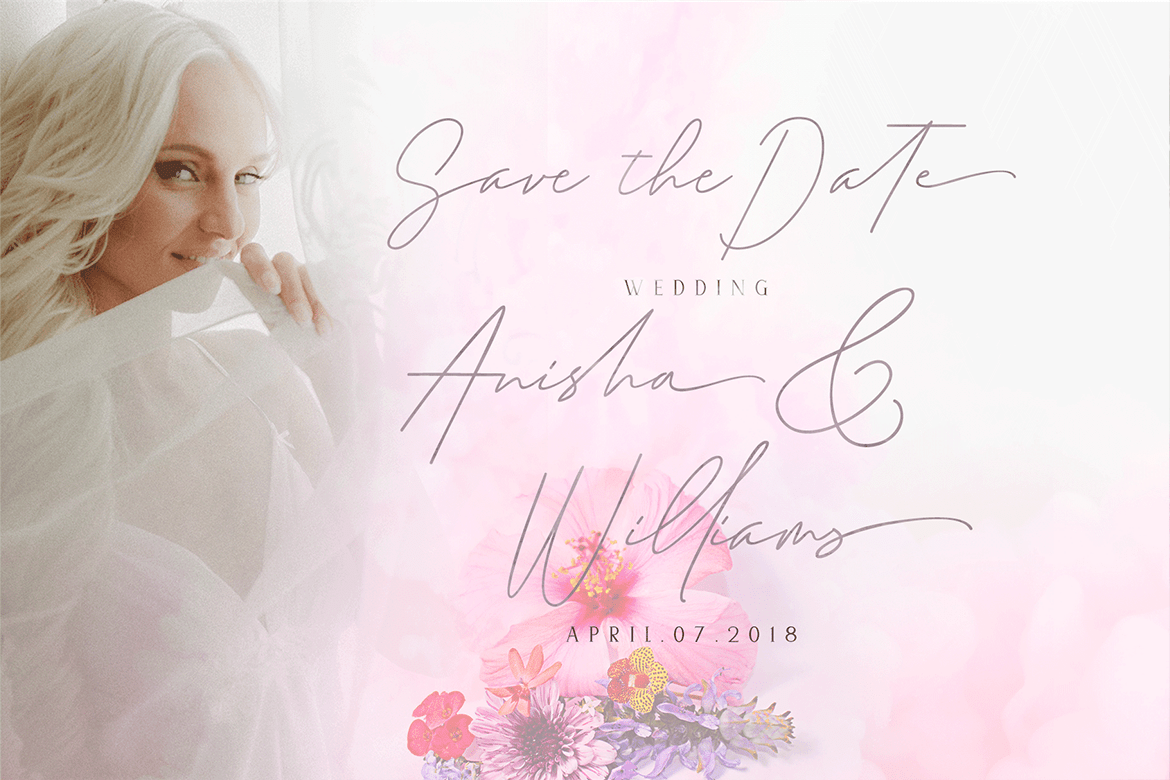
Aromatic
Font Family by Groen Studio
Aromatic a work that is purely handwritten, has its own characteristics with the style of monoline. this is perfect for invitations, signatures, blogs, social media, business cards, product brands.
Aromatic has Stylistic standard, Stylistic Alternate and ligatures. and includes uppercase and lowercase letters, numbers and punctuation marks.